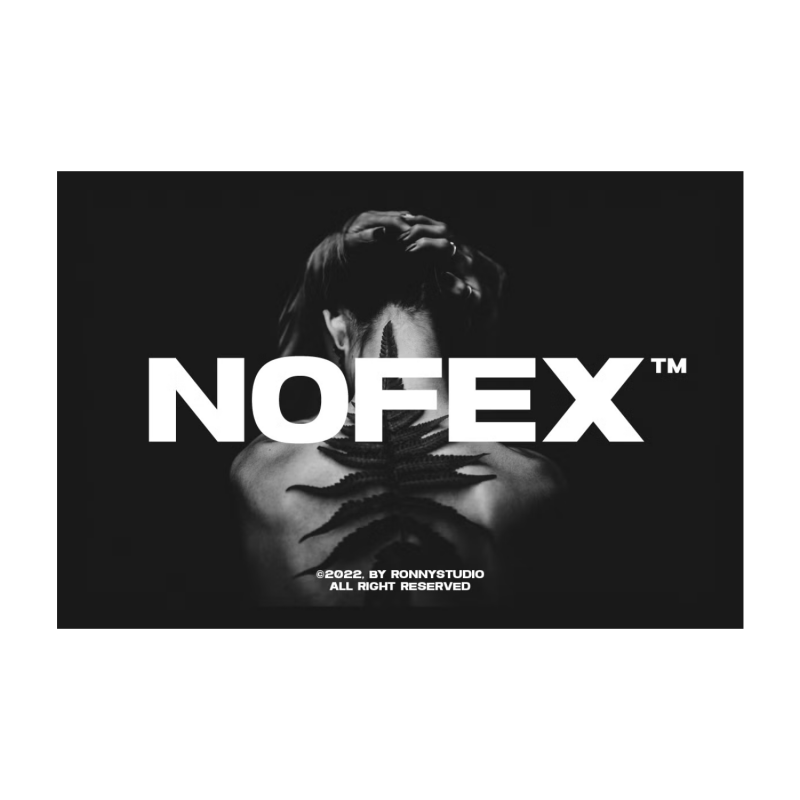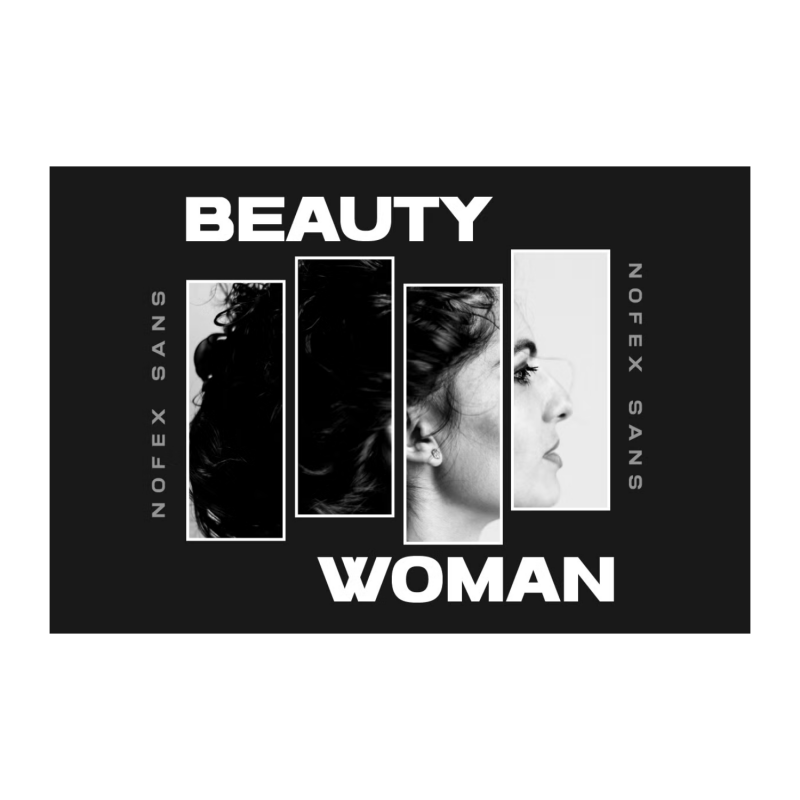
Nofex Expanded Sans Serif Font
Nofex is an all-caps font that has a very bold body but still has high contrast. This font looks very modern when paired with contrasting design colors. This font is impressive and features a clean and elegant font, professionally shaped, and as a result, it will easily match a variety of creations that require a different touch. Add it with confidence to your projects, and you'll love the results. This typeface is perfect for elegant logos, branding, promotions, book covers, magazine layouts, or simply as a stylish text overlay onto any background image.